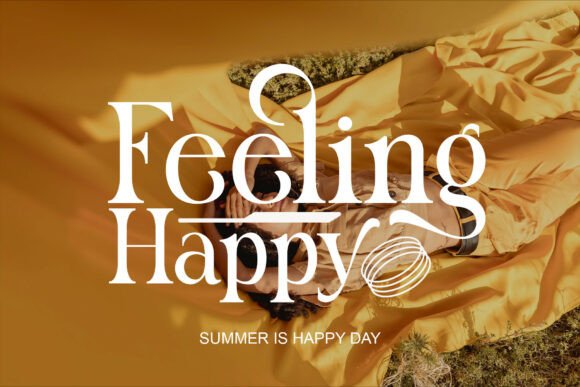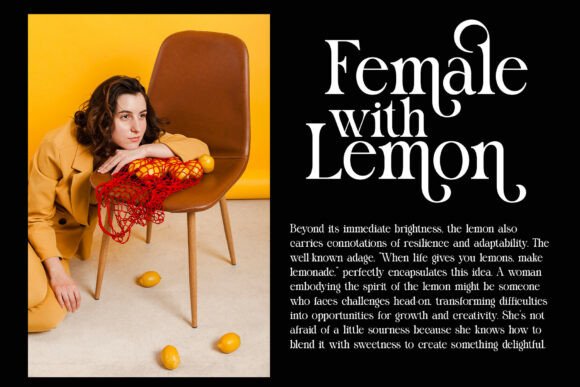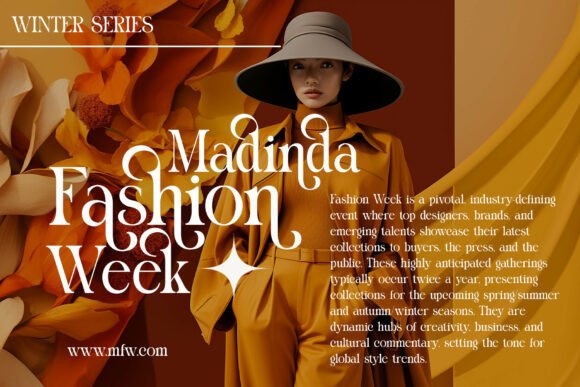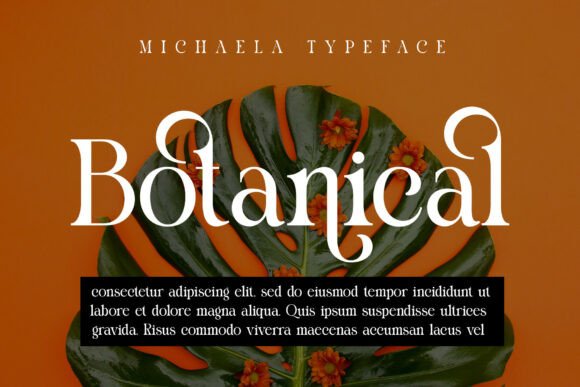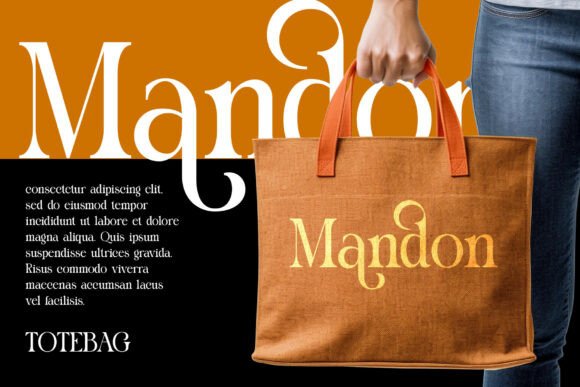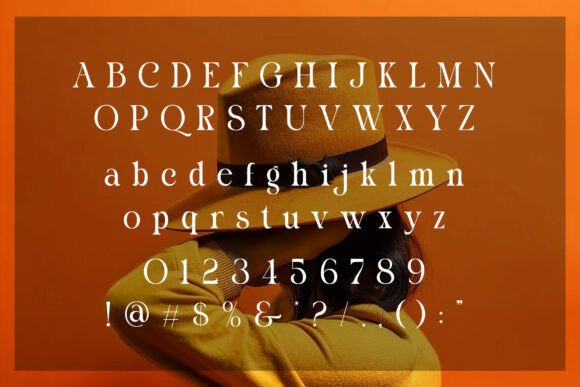
Introduction to Michale Font
Michale is an elegant ligature serif modern font that evokes the beauty of fresh blooms and timeless elegance.
With its bold yet refined ligatures, Michale stands out as a sophisticated and feminine typeface Perfect for upscale designs, whether for florals, fashion, or high-end branding, Michale pairs the charm of classic serif styles with a modern twist.